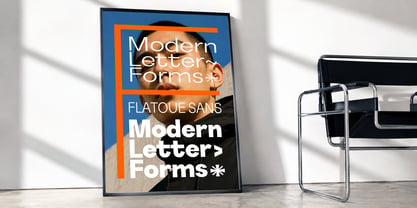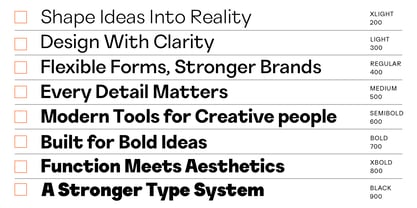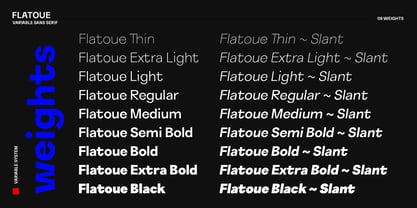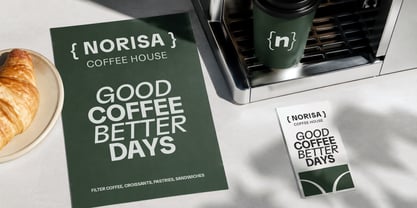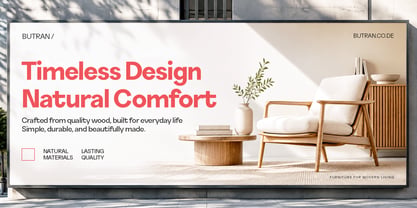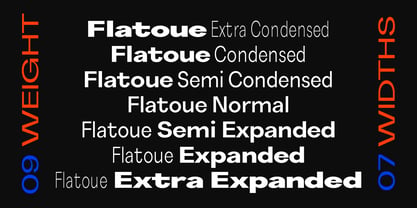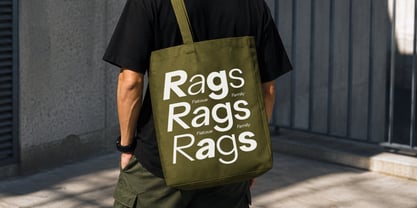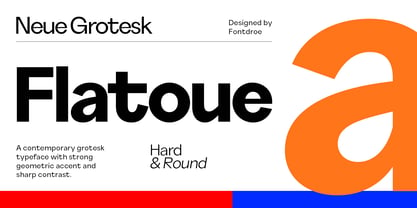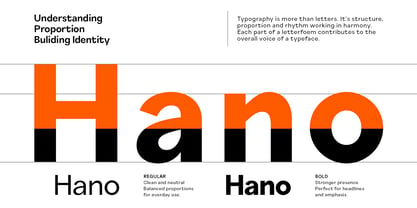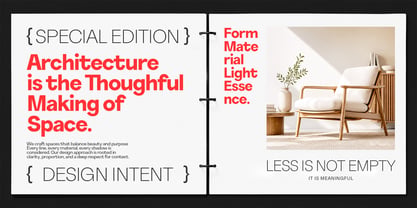
Flatoue
by Fontdroe
The Flatoue Font Family was designed by Mahdani and published by Fontdroe. Flatoue contains 253 styles and family package options. More about this family
Rounded
Hard
Flatoue is a contemporary grotesk sans serif designed to bring clarity, versatility, and modern character to a wide range of creative projects. Built with a refined balance between functional geometry and subtle humanist details, this typeface delivers a clean yet distinctive visual presence. With 9 weights and 7 widths, it offers an extensive range of typographic possibilities from compact and expressive display settings to comfortable text applications. The family also includes rounded styles, adding a softer and more approachable character while maintaining the structural integrity of the core design. Designed with multilingual support, it is ready for international branding, editorial design, identity systems, packaging, websites, posters, UI/UX, and contemporary graphic communication. Flexible, modern, and carefully crafted, this grotesk family is made to adapt seamlessly across different scales, styles, and visual languages.